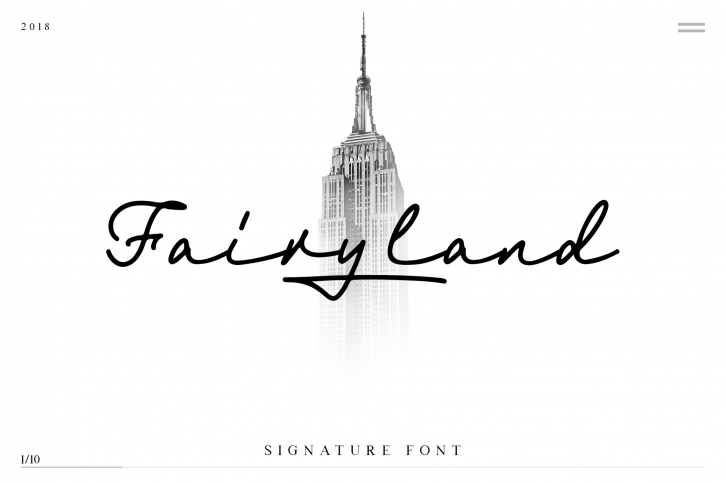
Fairyland is a gorgeous font that was realeased on September 24, 2018. The font can be used in many style contexts and design environments. Perfect for invitations, magazines, websites, logos, and more! It was designed by Runsell and the file size is 17.12 MB. Thanks for checking out this font!